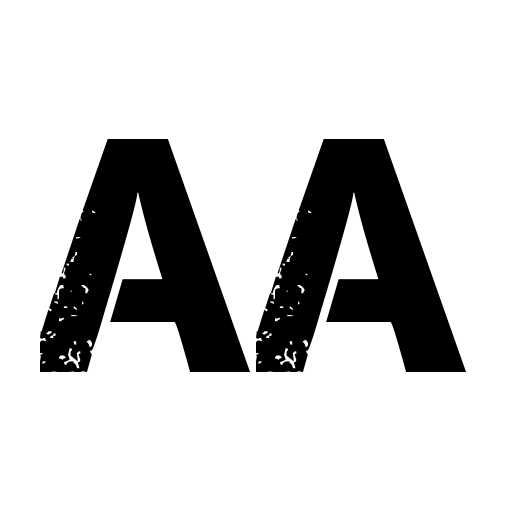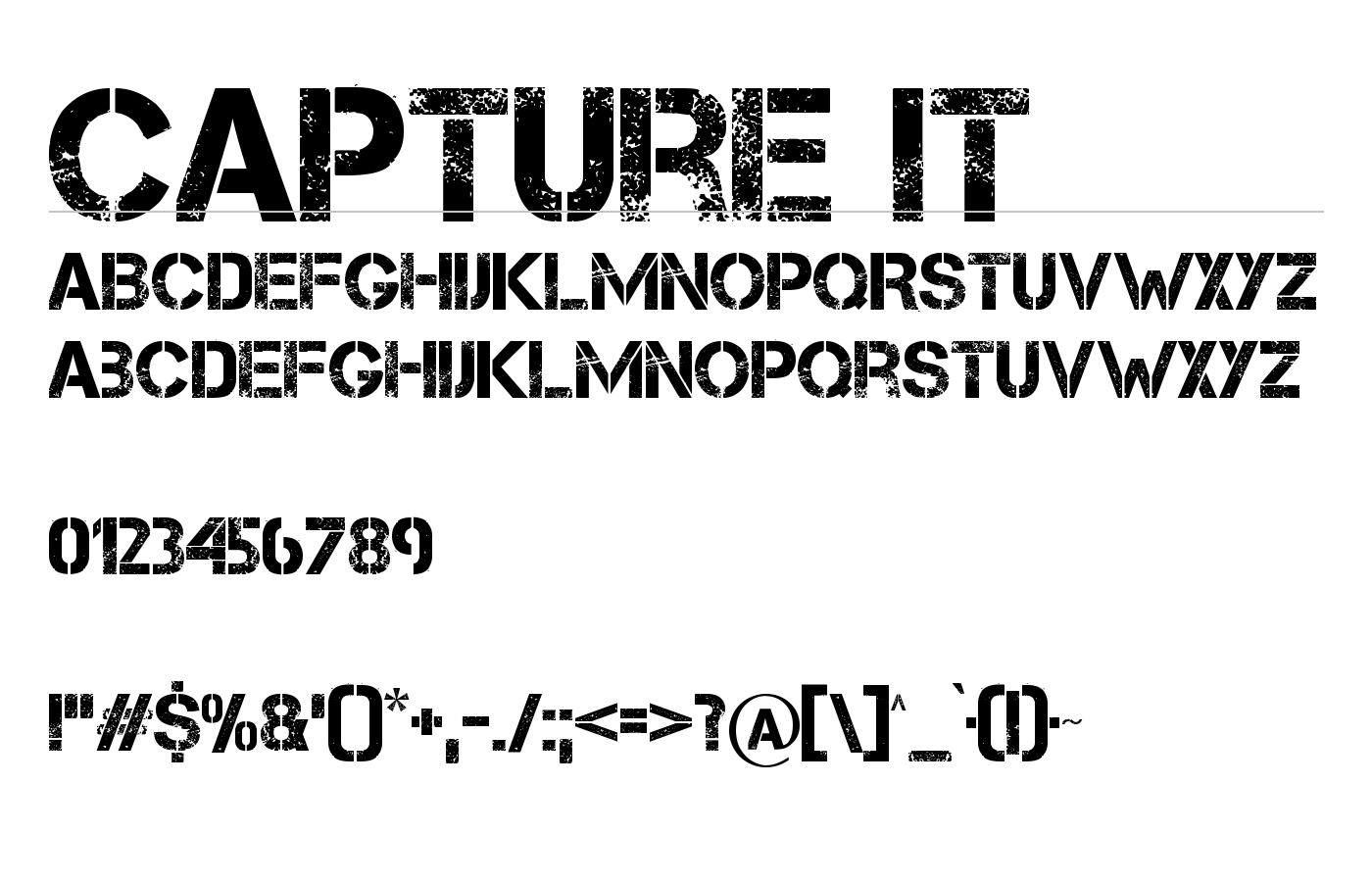
Capture It is a bold, wide sans-serif display font with a distressed, textured effect that gives it a rugged, industrial feel. Its strong geometric shapes and stencil-like breaks add a dynamic, urban edge, making it ideal for impactful headlines, posters, and branding that seeks to convey strength and raw energy. This font works especially well for designs in streetwear, music, or sports where a bold, attention-grabbing style is needed.
Capture it Font